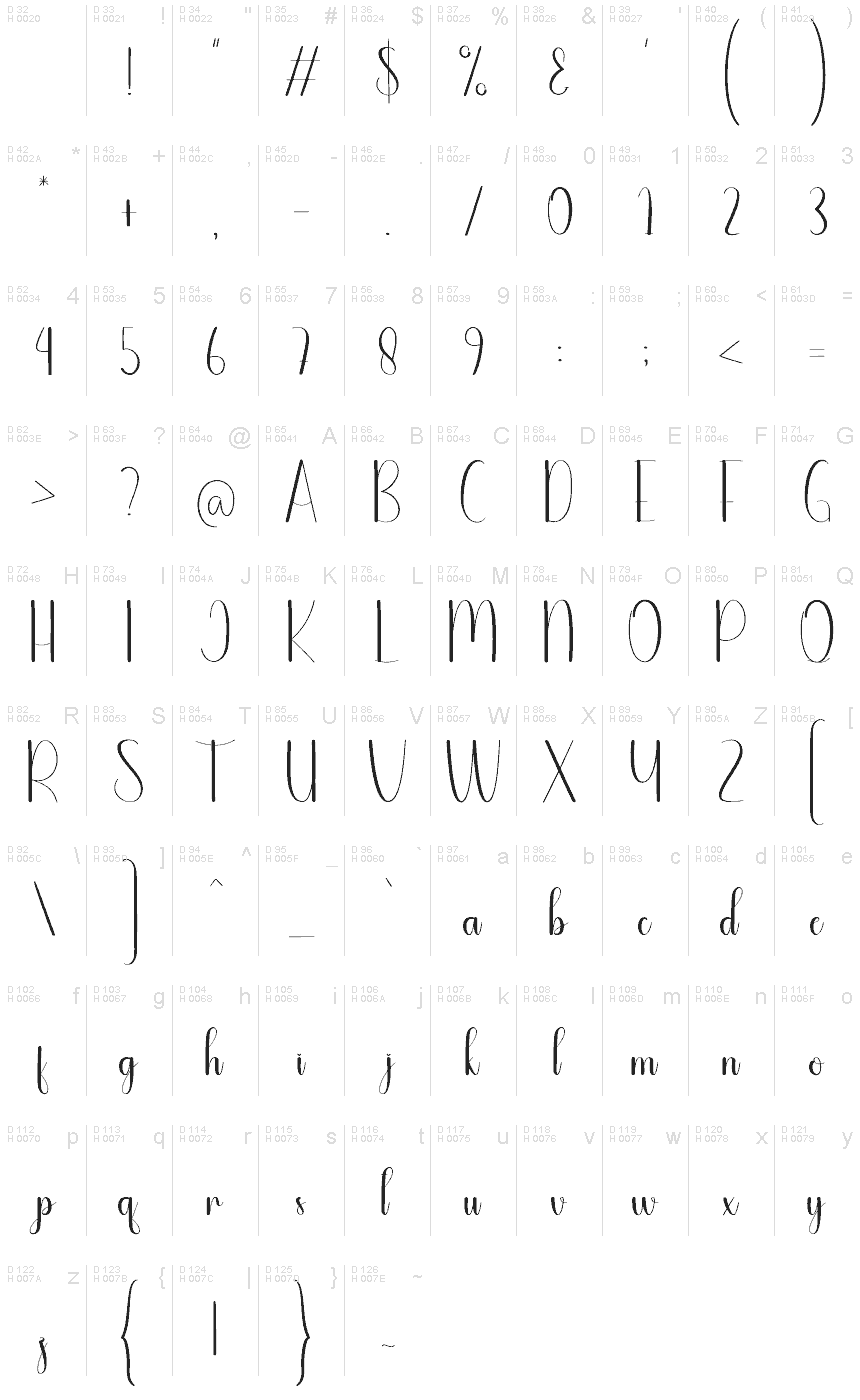
With Mother
With Mother font by Andi Moz combines fluid motion and graceful curves into an elegant handwriting design. Each letter is created with sophistication and a modern aesthetic, giving the lines more flair and movement which work together with a rhythmic consistency that transfers beautifully onto the page. A free handwritten font both professional and artistic.